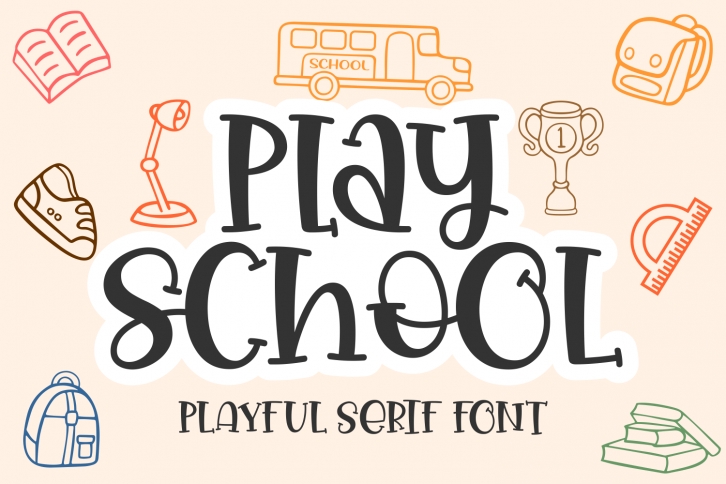
Play School is a fun and friendly display font. Whether you are using it for cartoon-related designs, children’s games, quotes, titles, brand names, book covers, posters, or just any creation that requires a touch of joy, this font is a great choice.